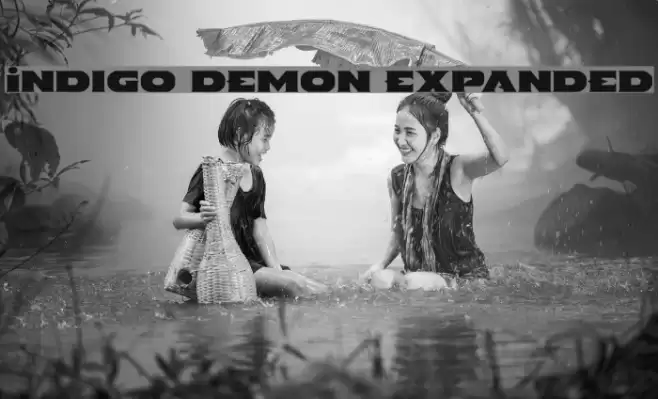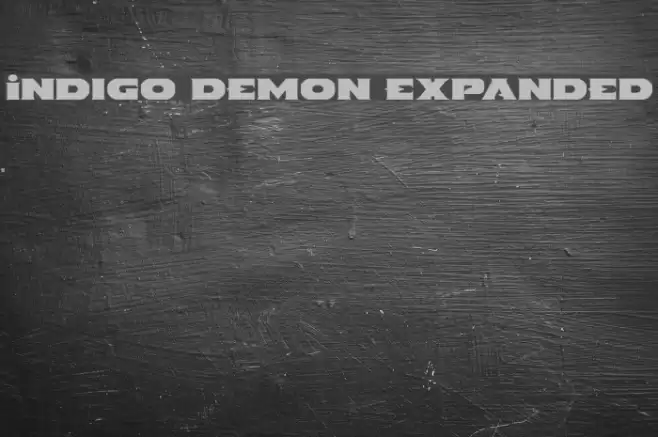
Indigo Demon Expanded Font
Indigo Demon Expanded Description
This font features a bold and striking design with a distinctly modern and futuristic aesthetic. The characters are heavily stylized, with sharp angles and unique cutouts that give it a dynamic and aggressive appearance. The uppercase letters are particularly prominent, showcasing a strong presence that commands attention. The numbers and special characters maintain this bold style, ensuring consistency across all glyphs. The font's expanded width and tight character spacing enhance its impactful look, making it ideal for projects that require a strong visual statement.
A bold, modern font with sharp angles and an expanded width, perfect for impactful designs from Modern fonts.
- Proposed Projects: Ideal for branding, posters, video game graphics, and any project needing a futuristic and bold typeface.
- Width: Expanded
- Character Spacing: Tight